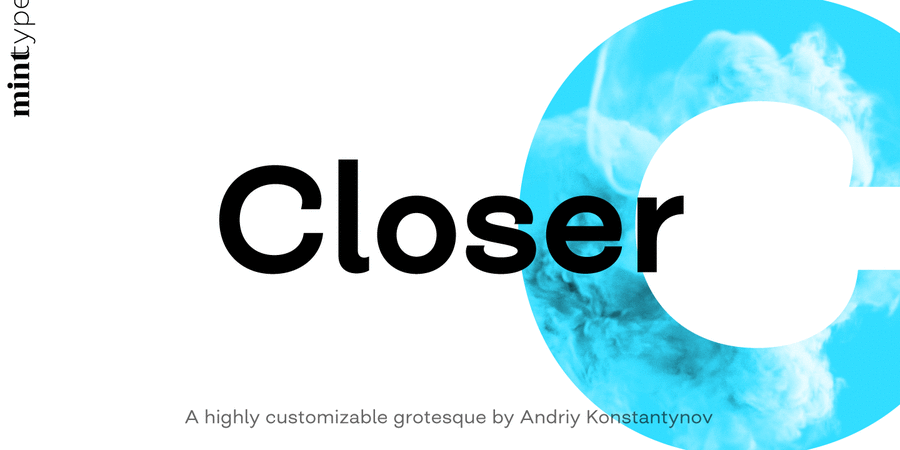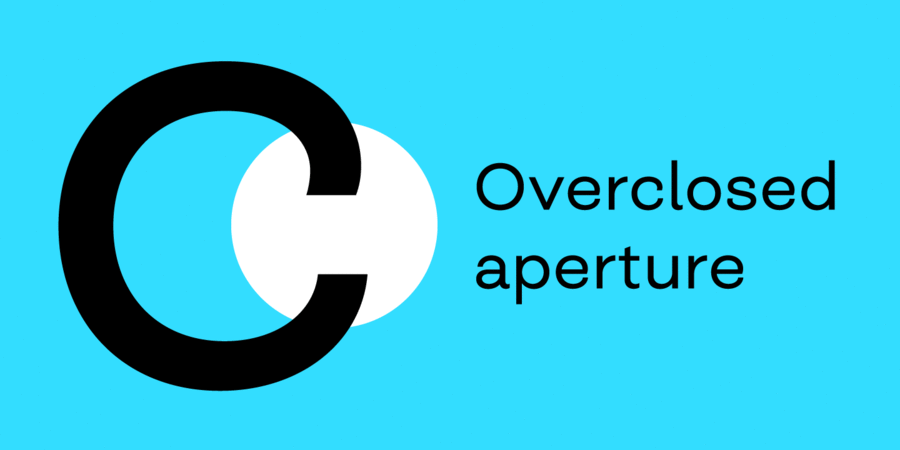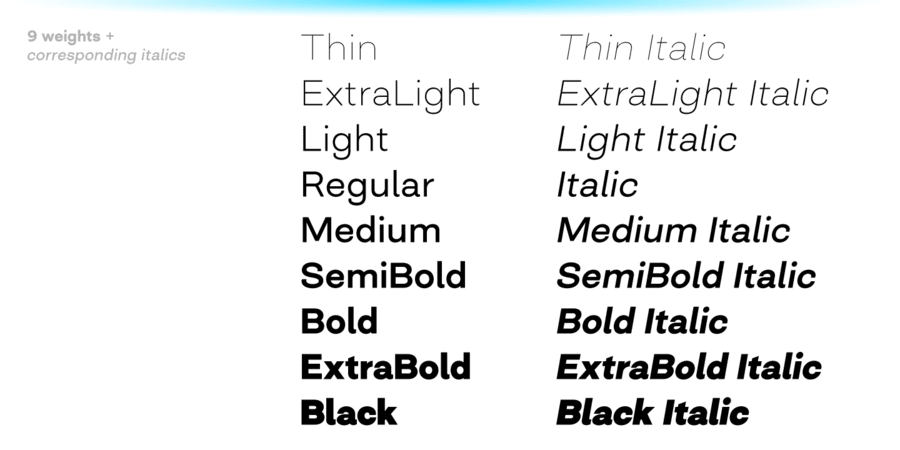
About CloserCloser is a highly customizable Swiss grotesque with overclosed aperture. Being a bit wider than the average grotesque and featuring some humanistic shapes, Closer feels less bland though still relatively neutral.
Closer comes in 9 weights (18 styles altogether), features extensive language support including Cyrillic and is highly customizable with 7 stylistic sets to mix and match.
The typeface was designed by Andriy Konstantynov in 2019.